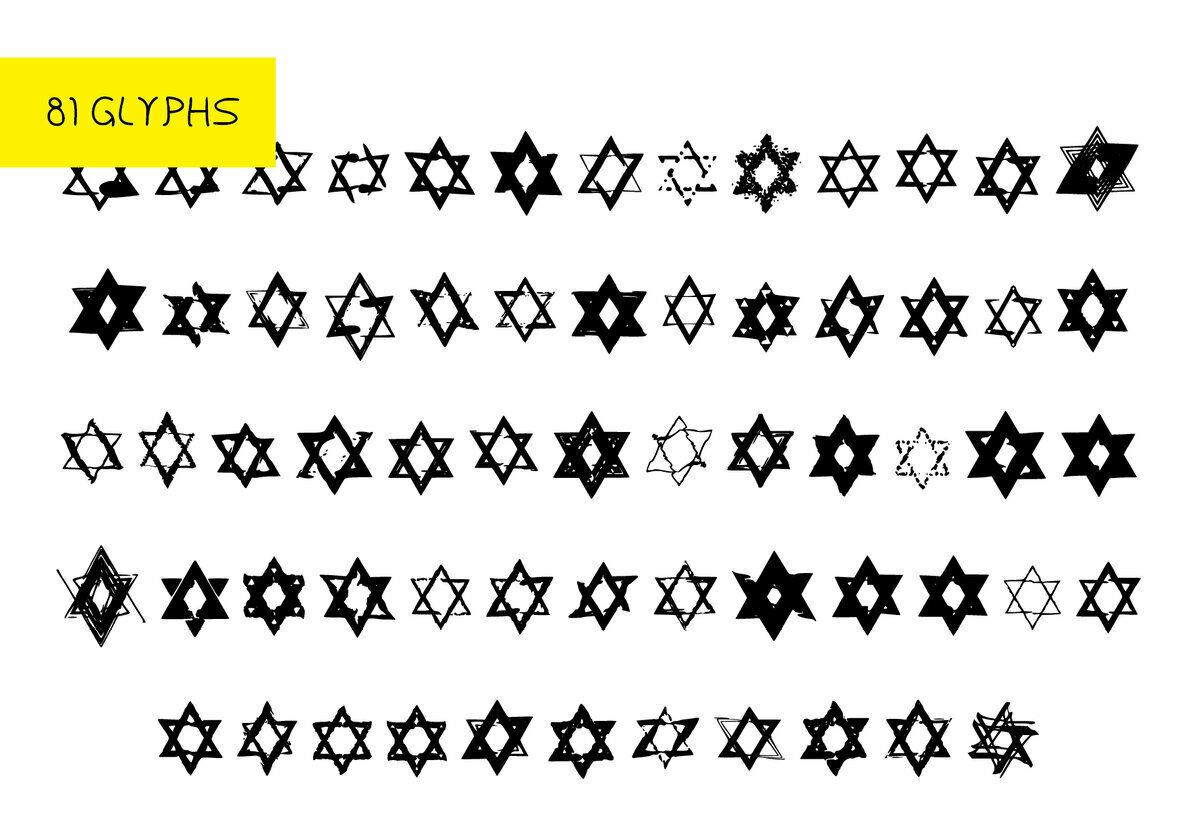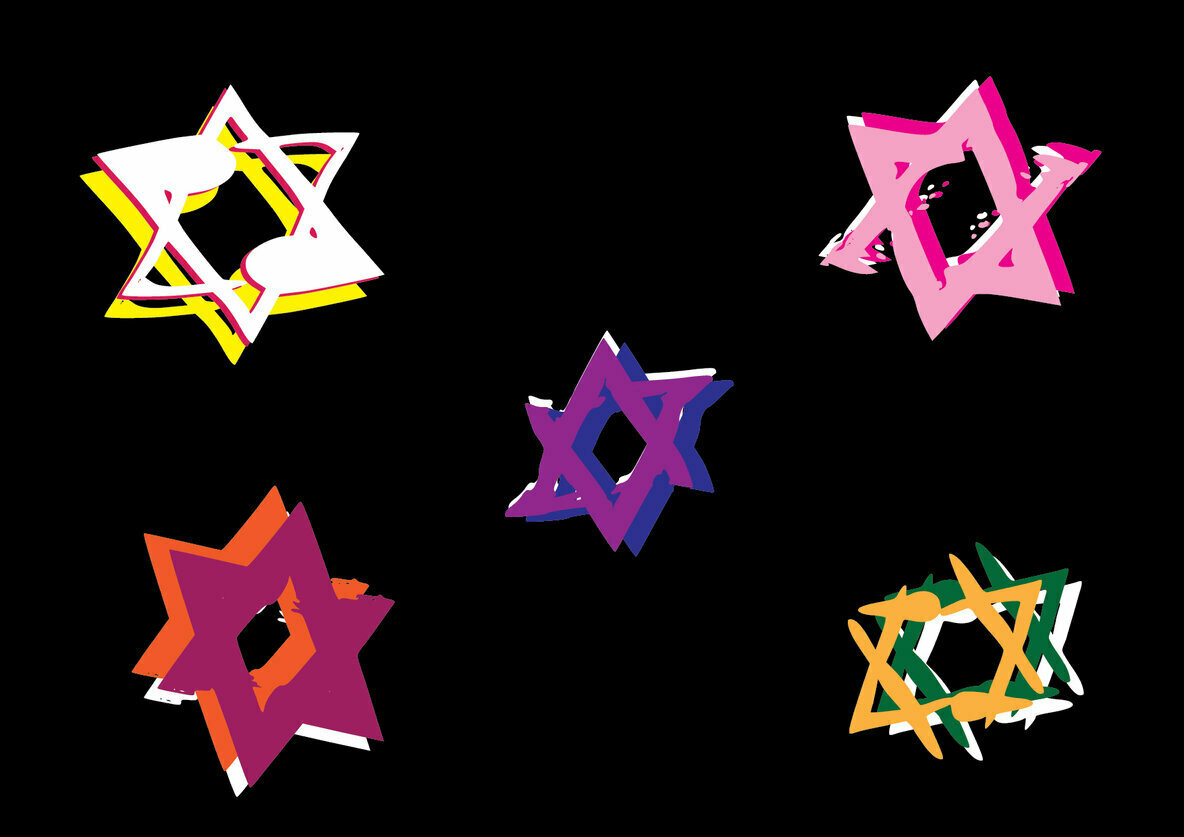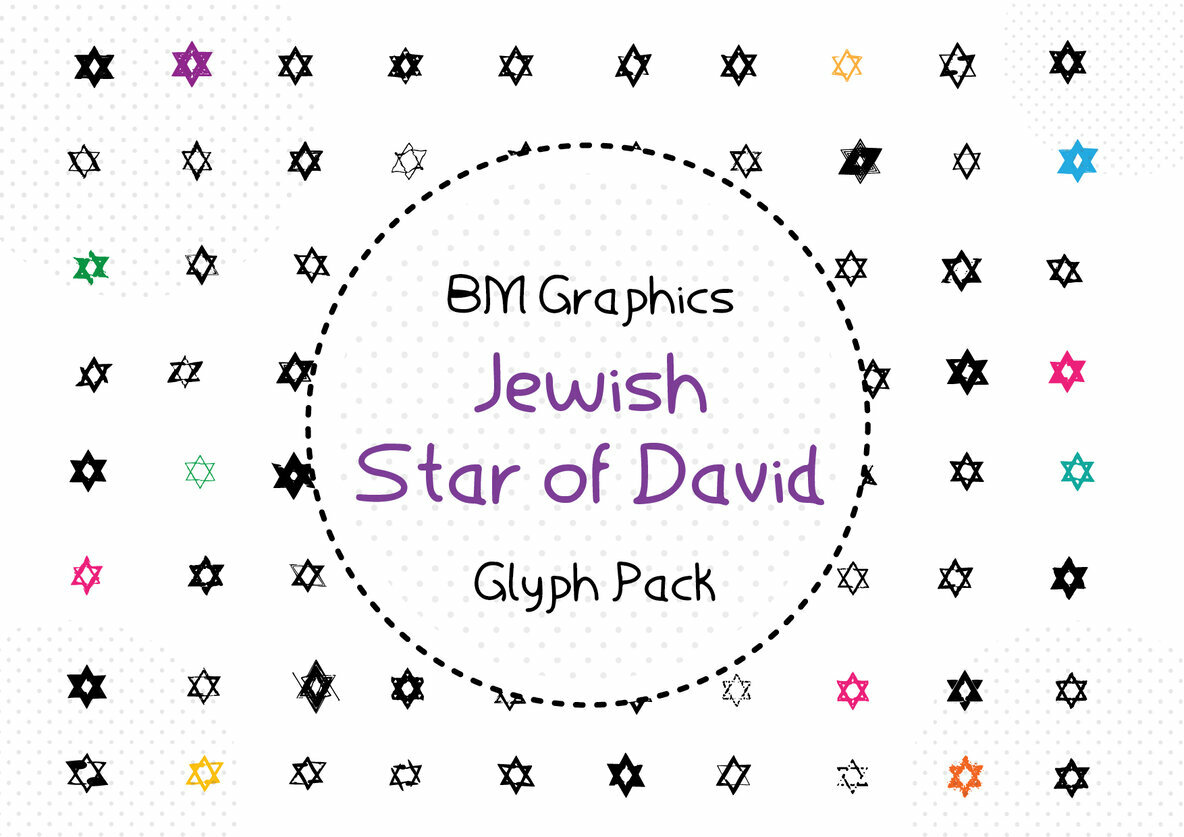
BM Graphics - Star of David Font
BM Graphics Star Of David
BM Graphics - Star Of David is a stunning dingbats font that combines 81 Glyphs. Use it for any design project that requires a hand drawn look and feel, there are so many to choose from!